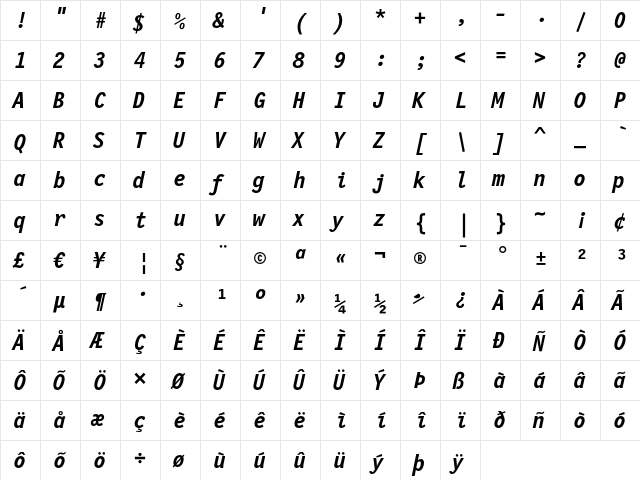
Letter Gothic 12 Pitch Bold Italic
Design Context for Letter Gothic 12 Pitch Typeface
Letter Gothic 12 Pitch has the quiet confidence of well-executed sans-serif typography: versatile, unobtrusive, and dependable at any size. Its italic angle brings a sense of urgency and motion to the letterforms. The heavy weight commands attention and anchors typographic hierarchies.
Well-suited to navigation labels, product packaging, and anywhere legibility at scale is essential.
Font Pairing: Use Letter Gothic 12 Pitch for headlines alongside a lighter-weight sans or serif for body copy to establish clear visual hierarchy.
Pro Tip: Use Letter Gothic 12 Pitch for UI labels, navigation, and short-form body copy where clean legibility is the priority.